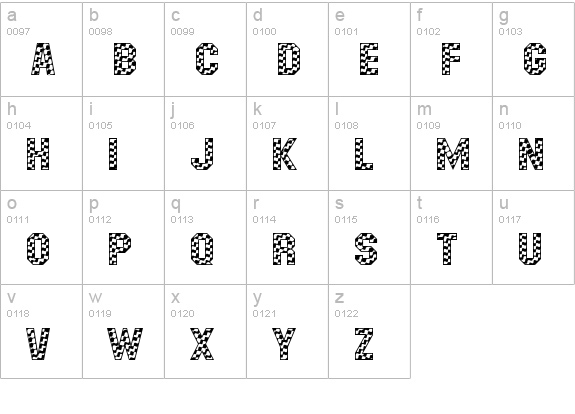
MasheenFlag Font Details
MasheenFlag is a visually stunning and versatile font that combines the best of both worlds - a bold and modern design with a touch of vintage charm. This font is perfect for making a bold statement or adding a unique touch to any project. With its geometric and angular letterforms, MasheenFlag is sure to catch the eye and make a lasting impression. Whether you're designing a logo, creating a poster, or crafting a headline, this font will bring a sense of energy and excitement to your work. One of the best features of MasheenFlag is that it is completely free to download. That's right, you can get your hands on this font without spending a dime. It is available for download exclusively at FontsMarket.com, a trusted source for high-quality fonts. MasheenFlag offers a wide range of characters, including uppercase letters, lowercase letters, numbers, and punctuation marks. This allows you to create stunning typography that stands out from the crowd. In addition to its striking design, MasheenFlag is also incredibly easy to use. It is compatible with both Windows and Mac operating systems, and can be installed with just a few clicks. Once installed, you can start using this font in your favorite design software or word processing program. So why wait? Download MasheenFlag today and start adding a touch of boldness and style to your designs. With its unique blend of modern and vintage elements, this font is sure to elevate your work to the next level. And the best part? It's completely free. Don't miss out on this opportunity to enhance your design arsenal with MasheenFlag. Get it now at FontsMarket.com.